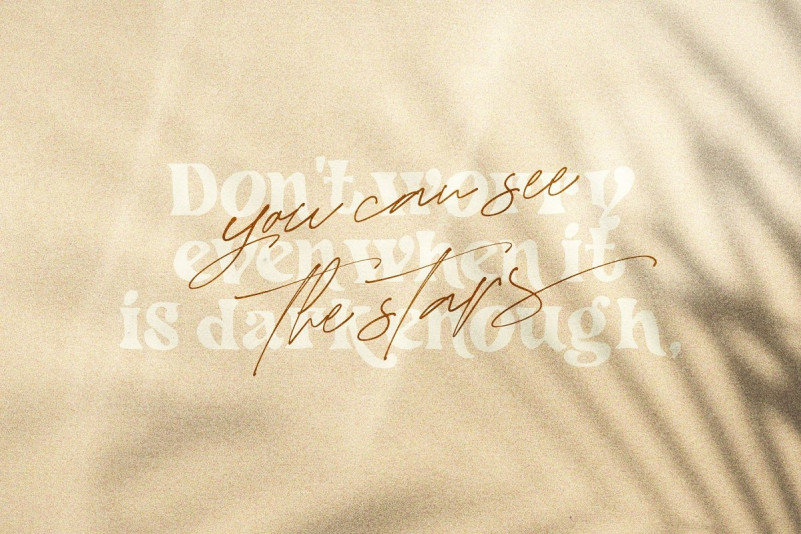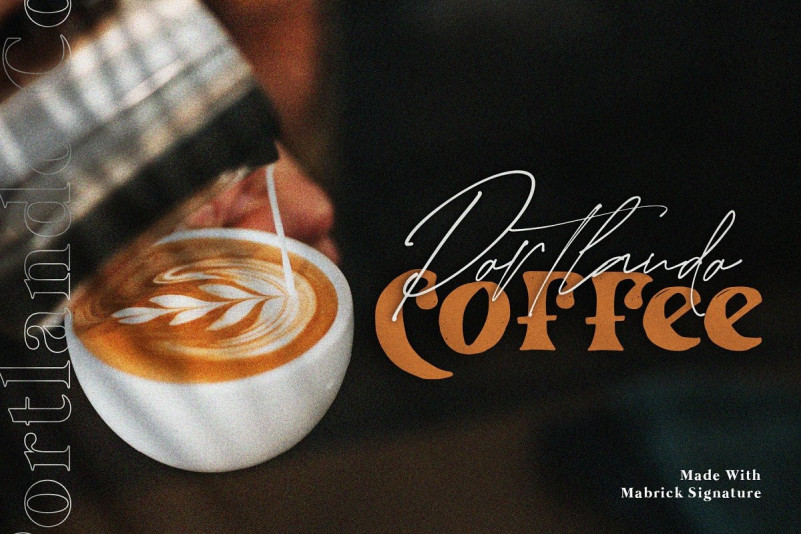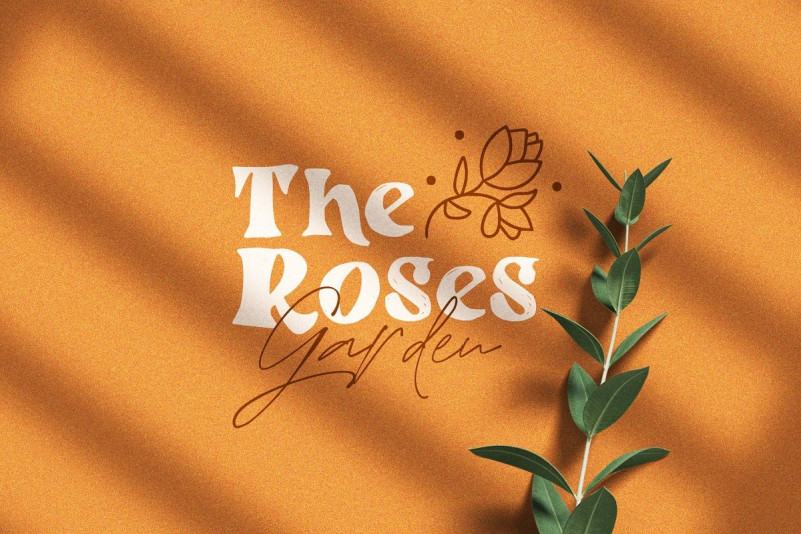
Mabrick Playful – Free Demo
Say hello to Mabrick Font. This is a fancy hand-lettering script font with cute styles. A clean hand drawn font perfect for any craft projects. Vintage, Modern, and Bold font. Perfect for logo, poster, headline, T shirts, etc. It’s designed and shared by Dirtyline Studio. It’s a playful font duo that includes a signature script and a hand-drawn serif – already matched up and ready to be used together for your next design!